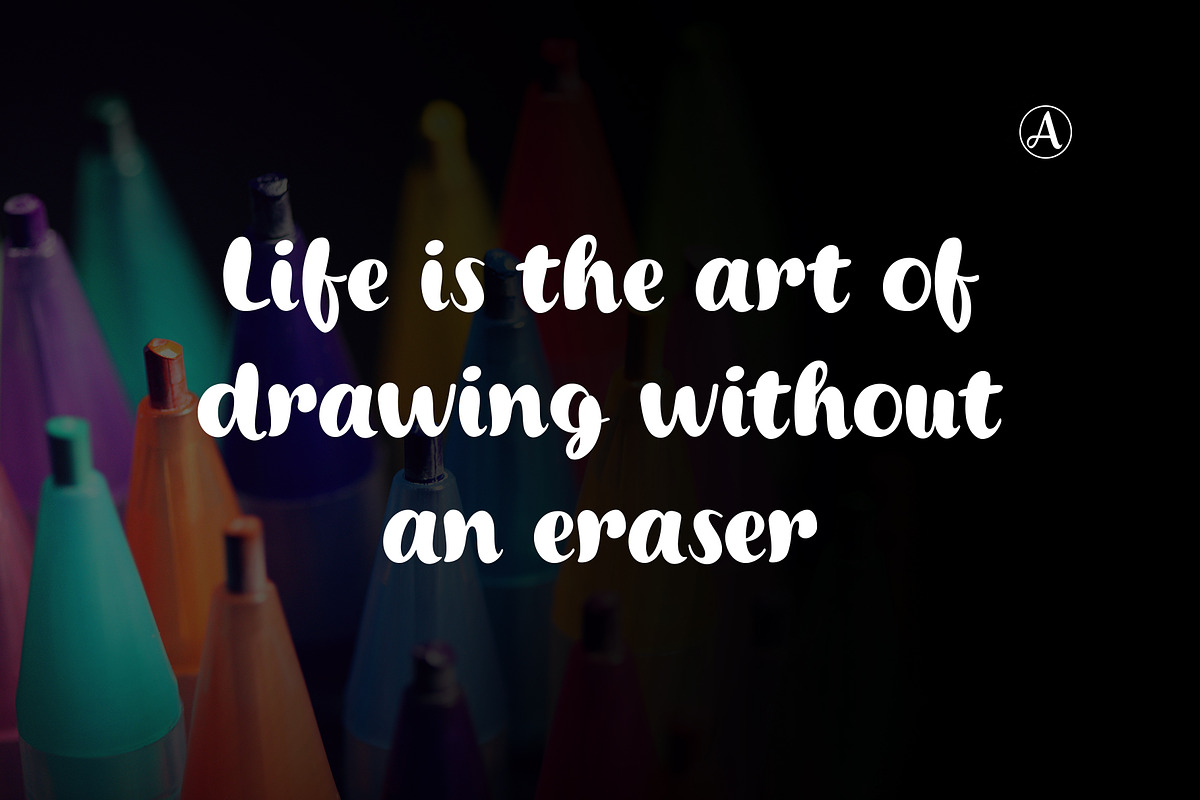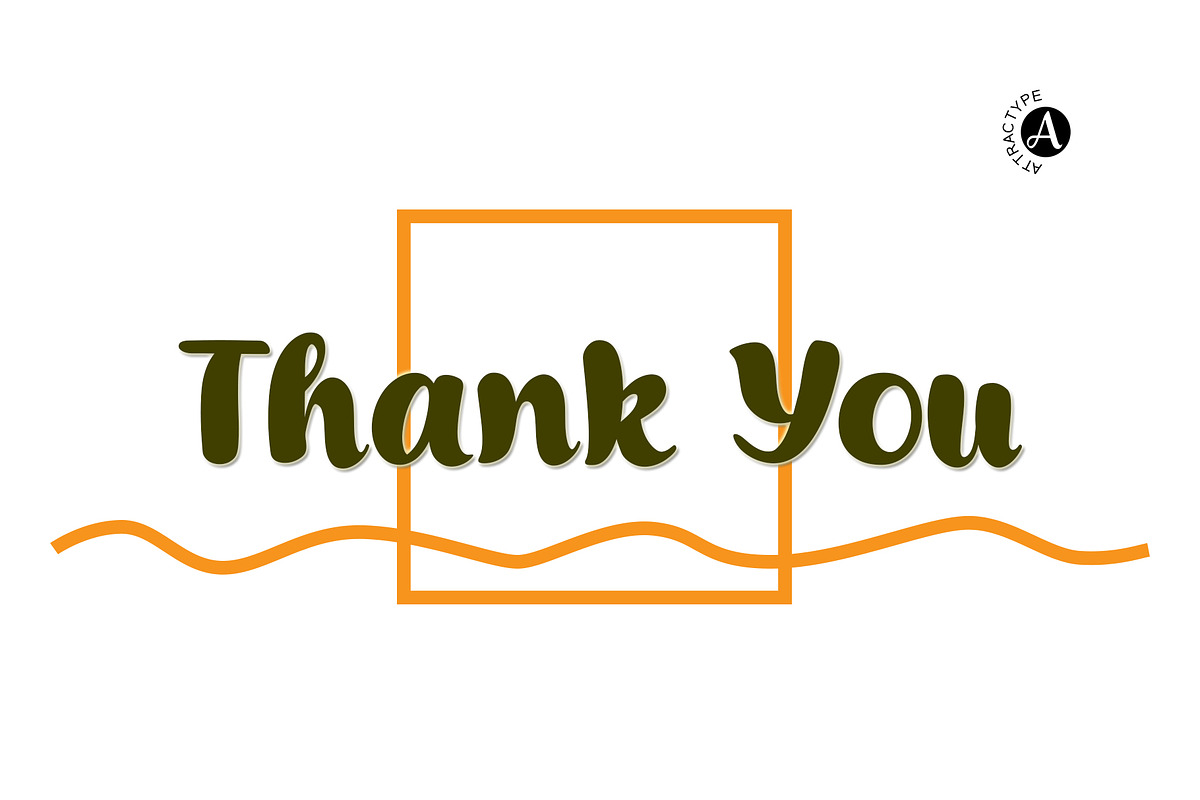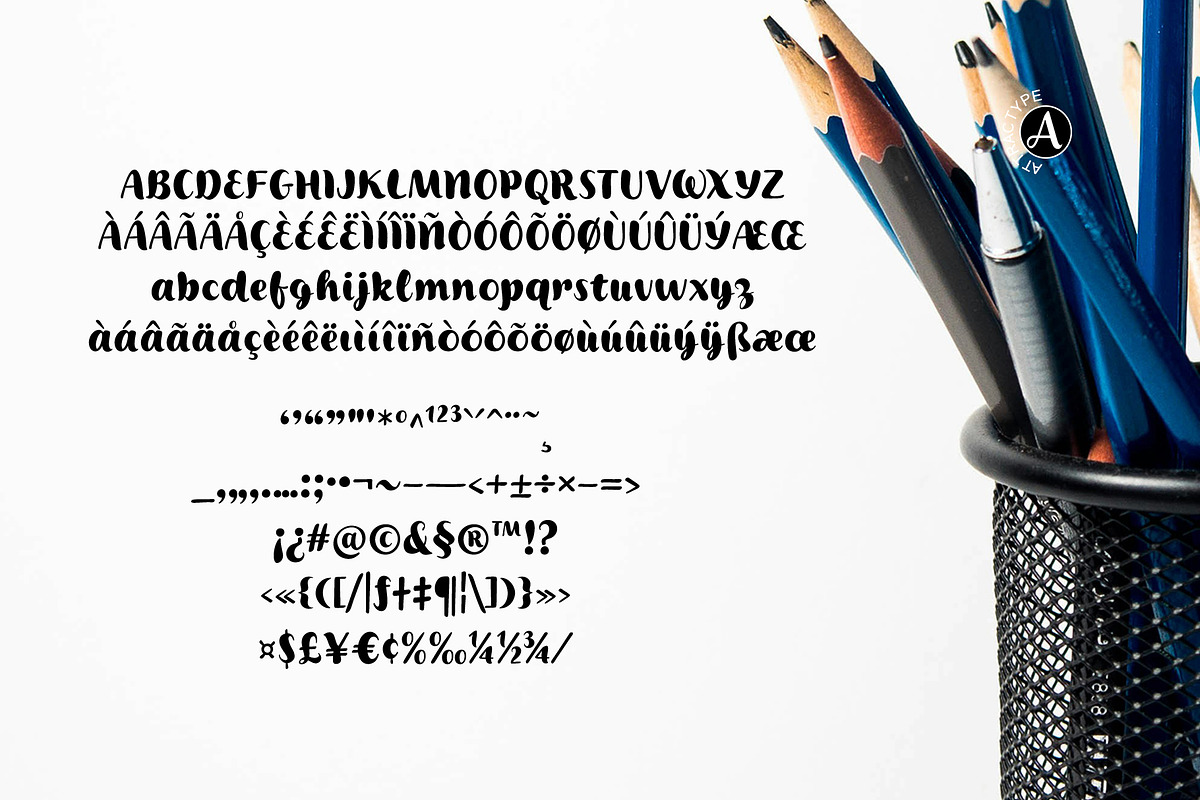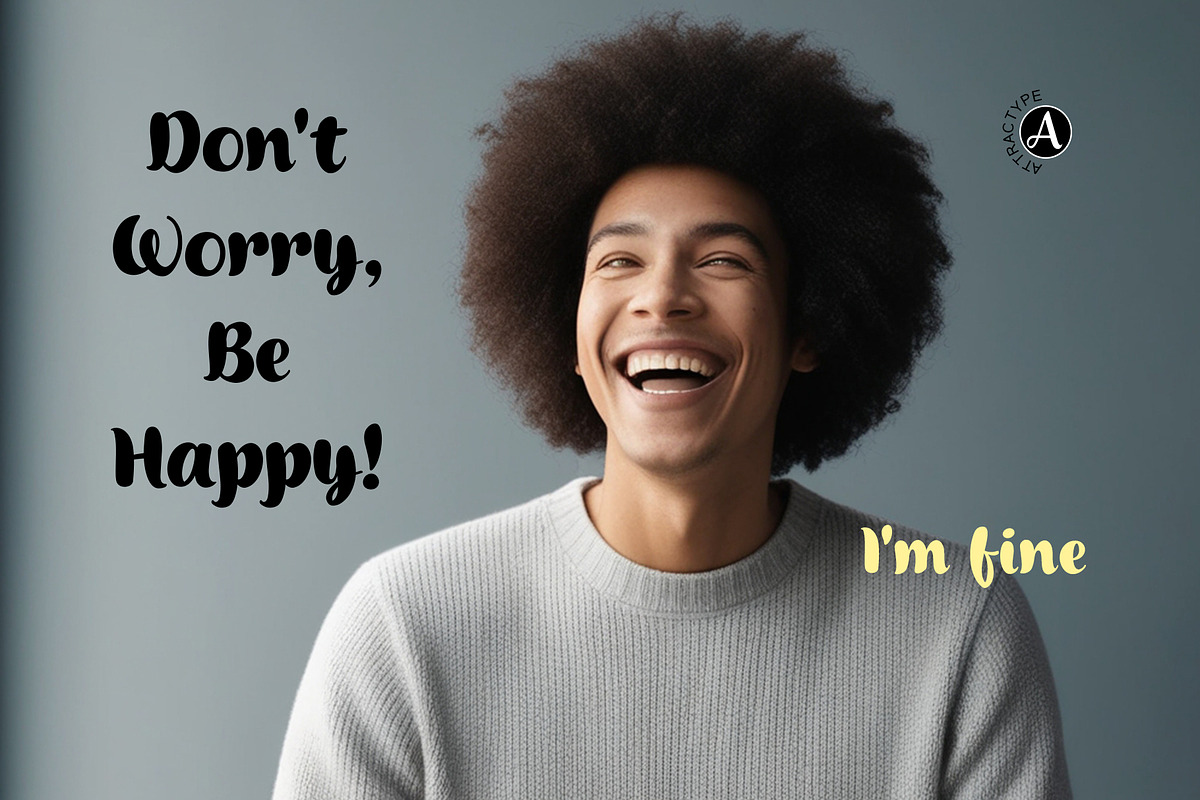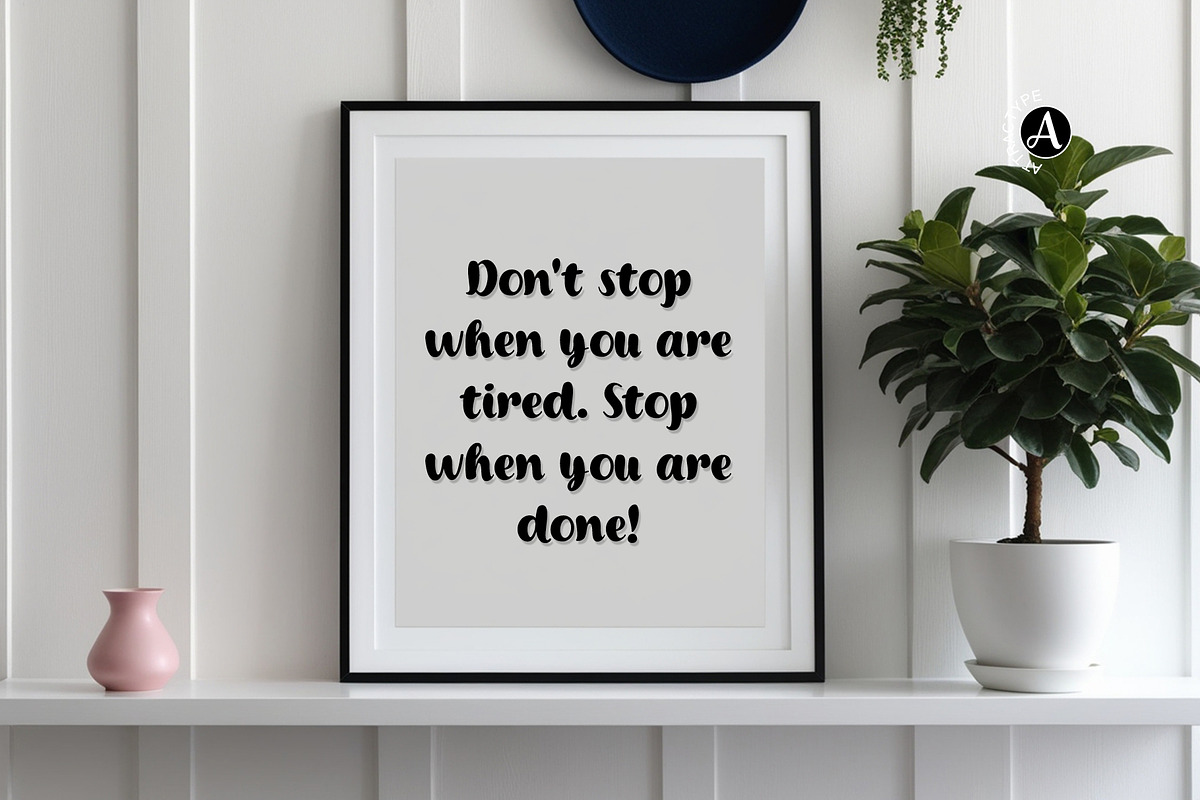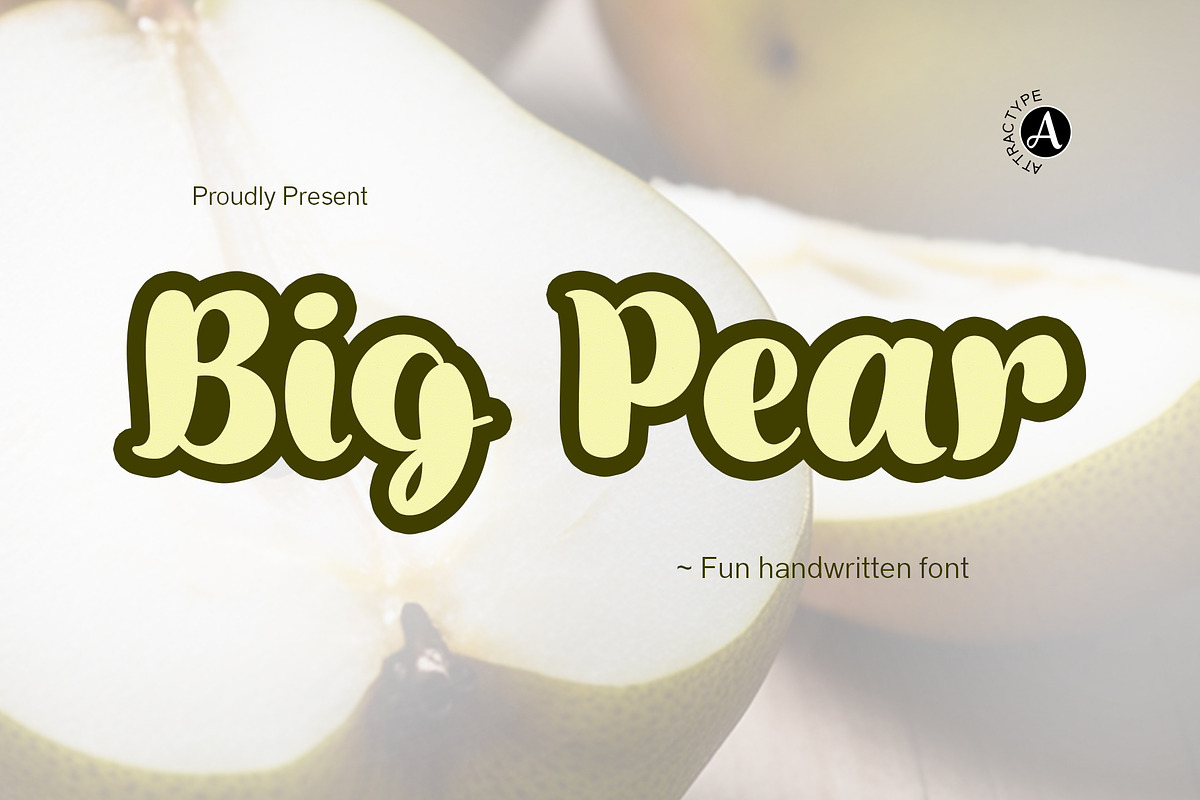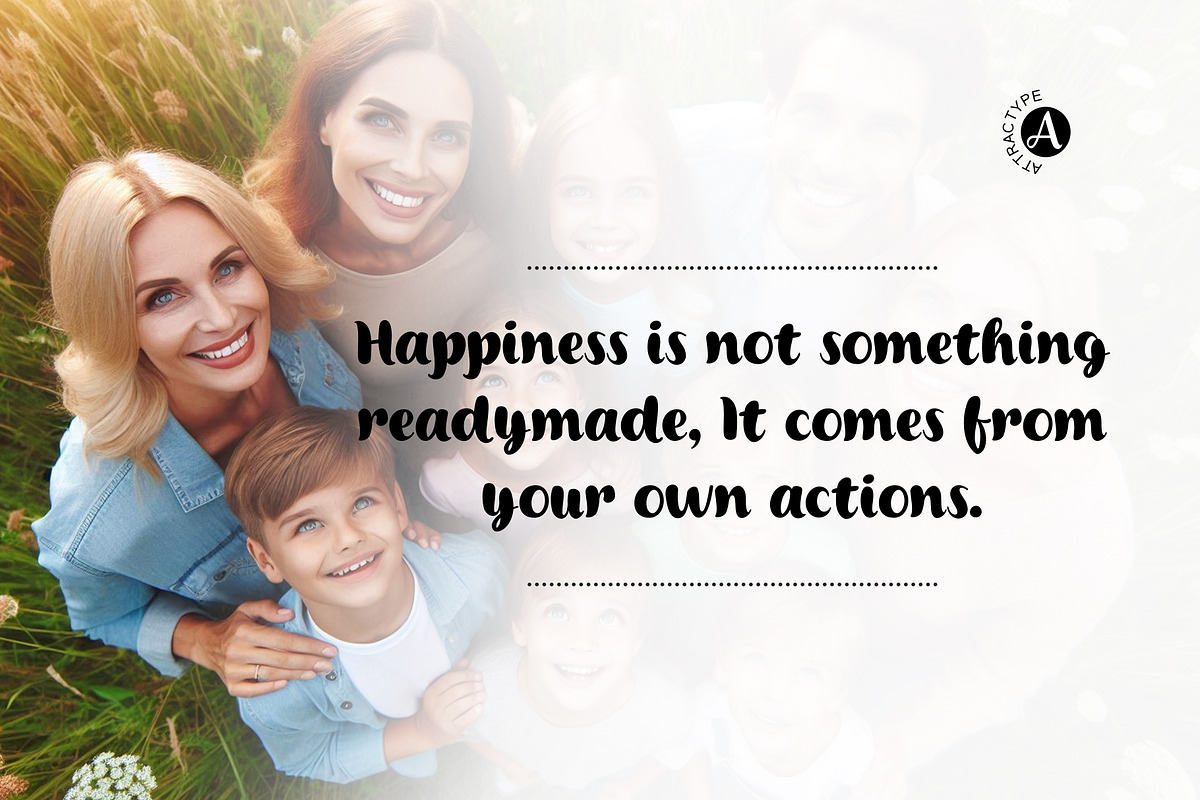
Big Pear - Fun Handwritten
This handwritten font is fun, bold, and readability, perfect for t-shirt designs, quotes, wall art, food products, ads, banners, social media posts, and more.
This Big Pear font contains all standard letter characters, punctuation and multilingual supports.